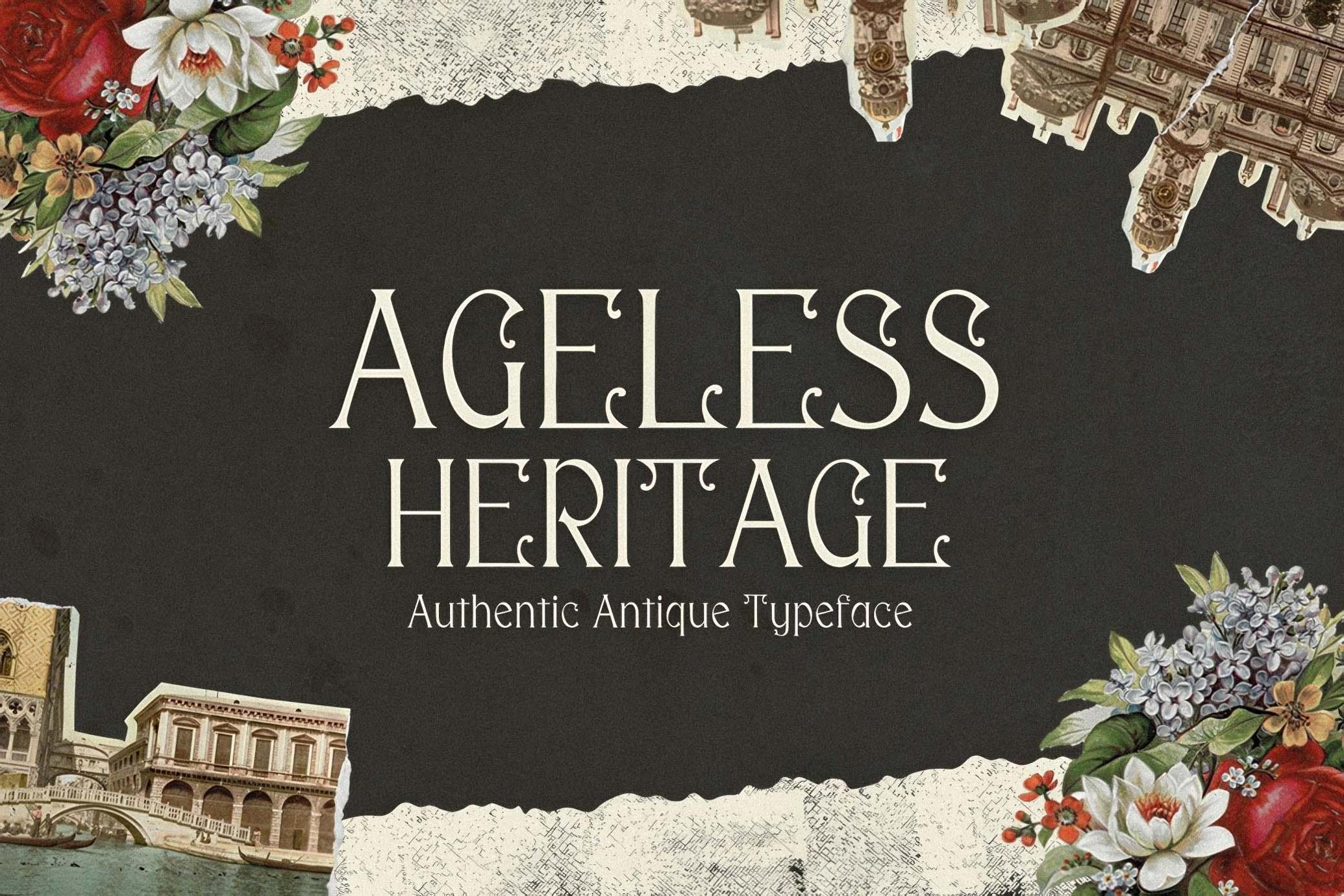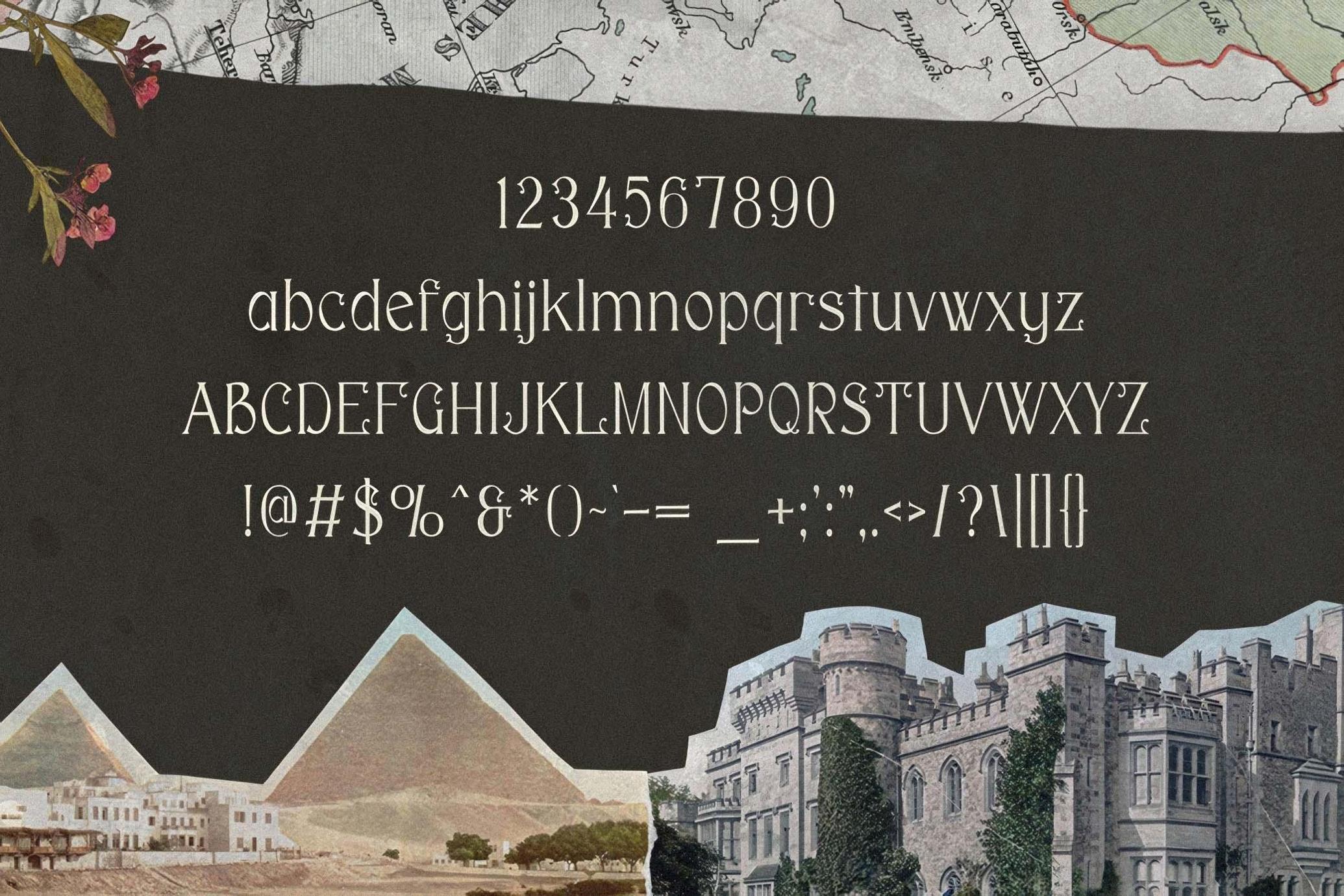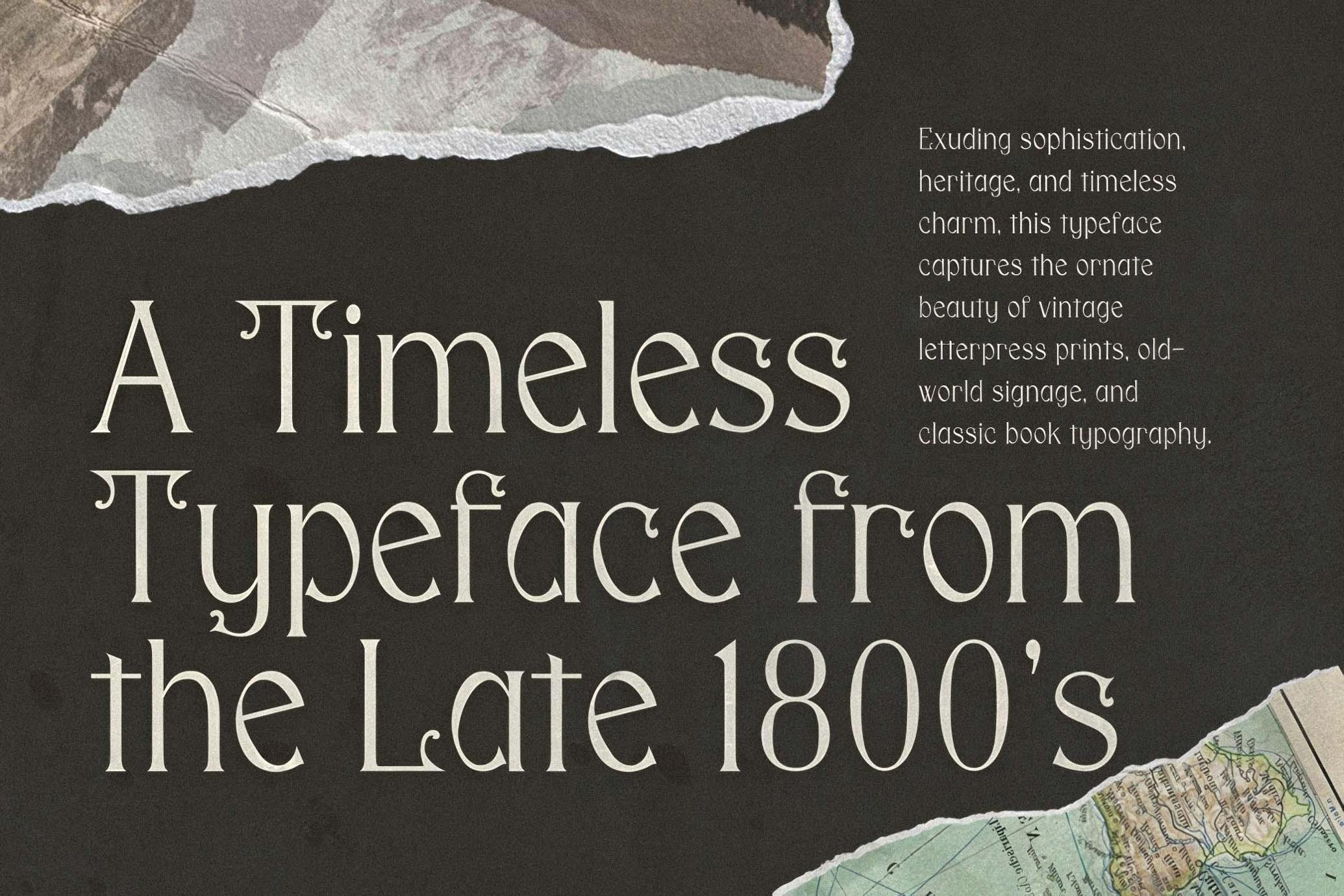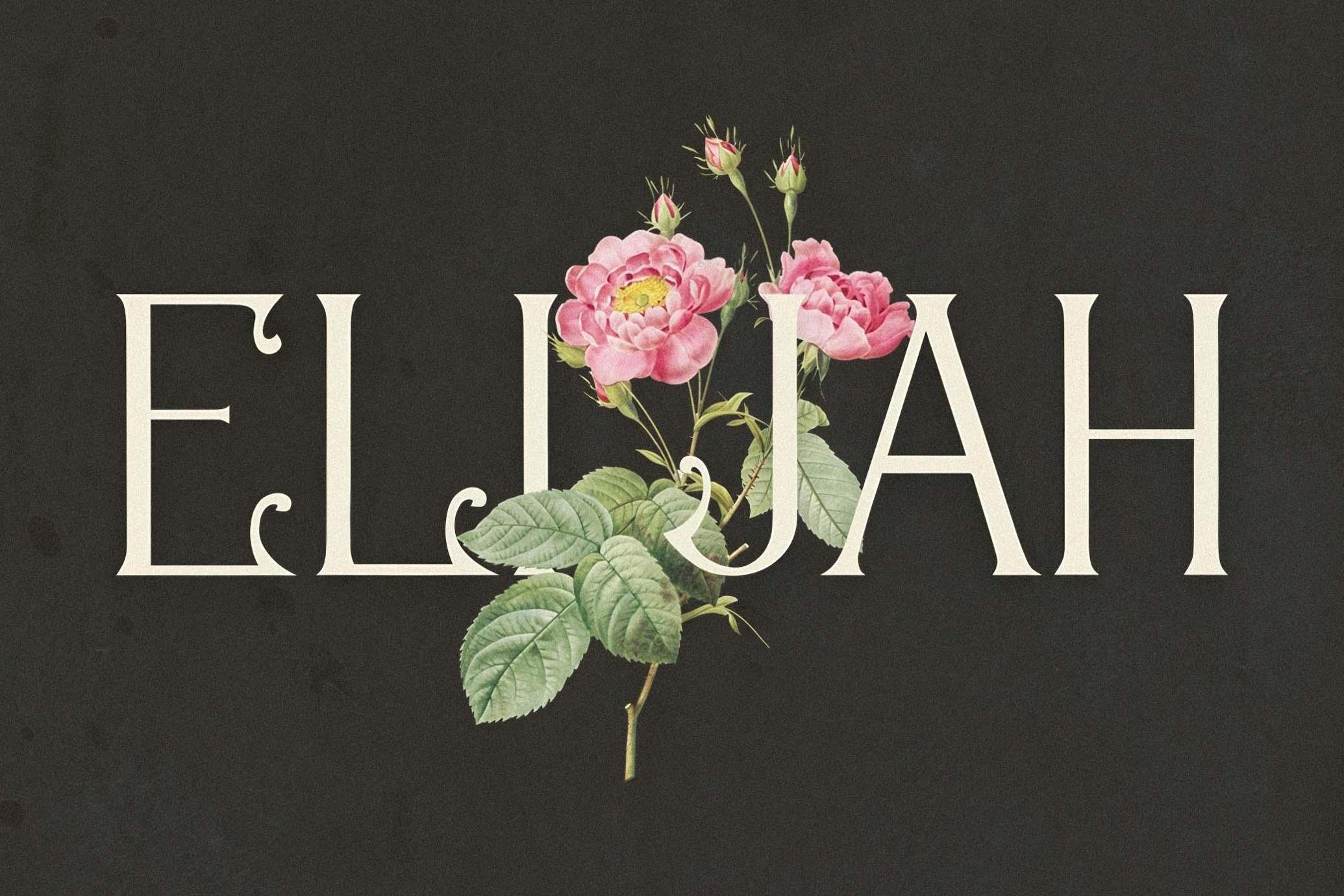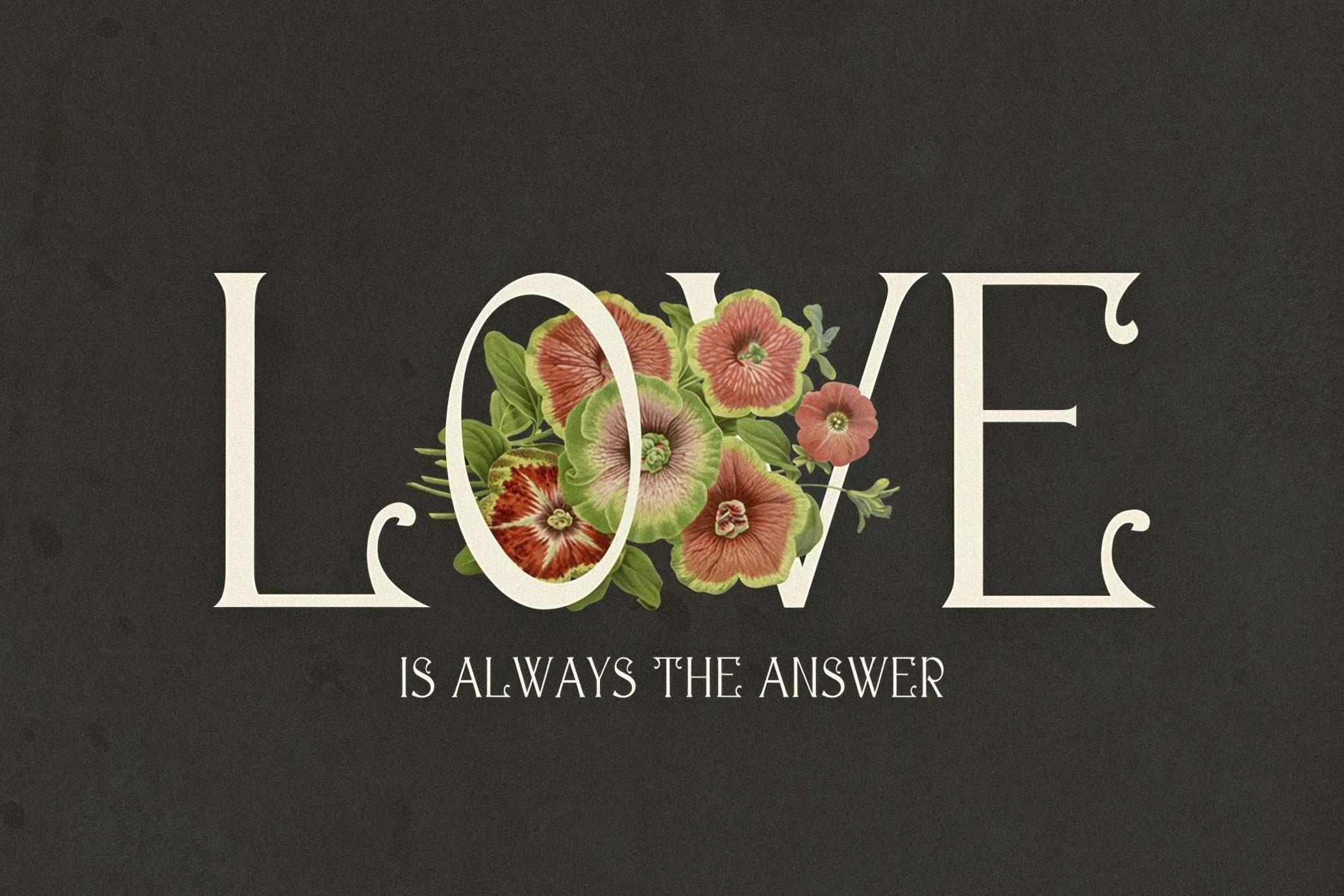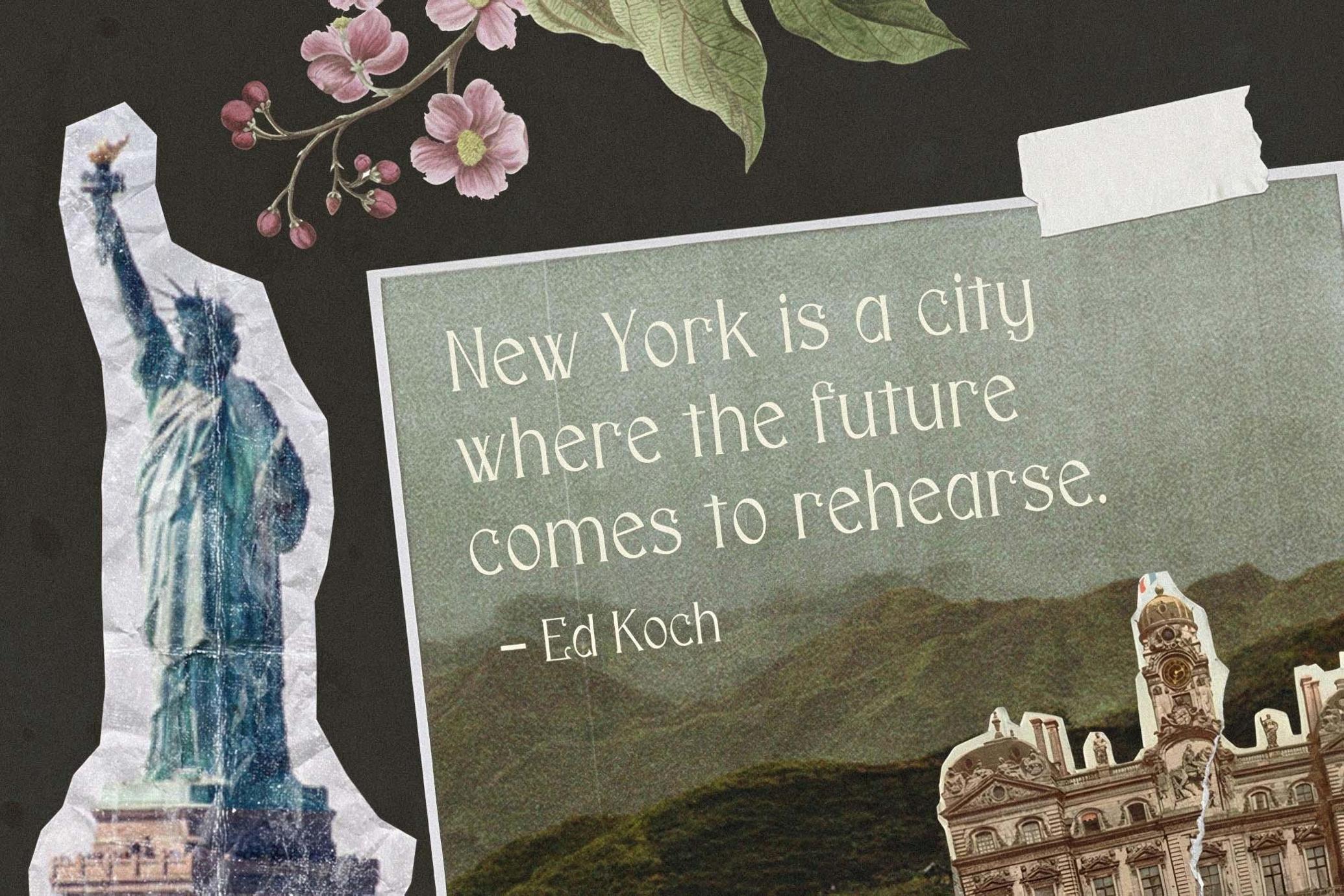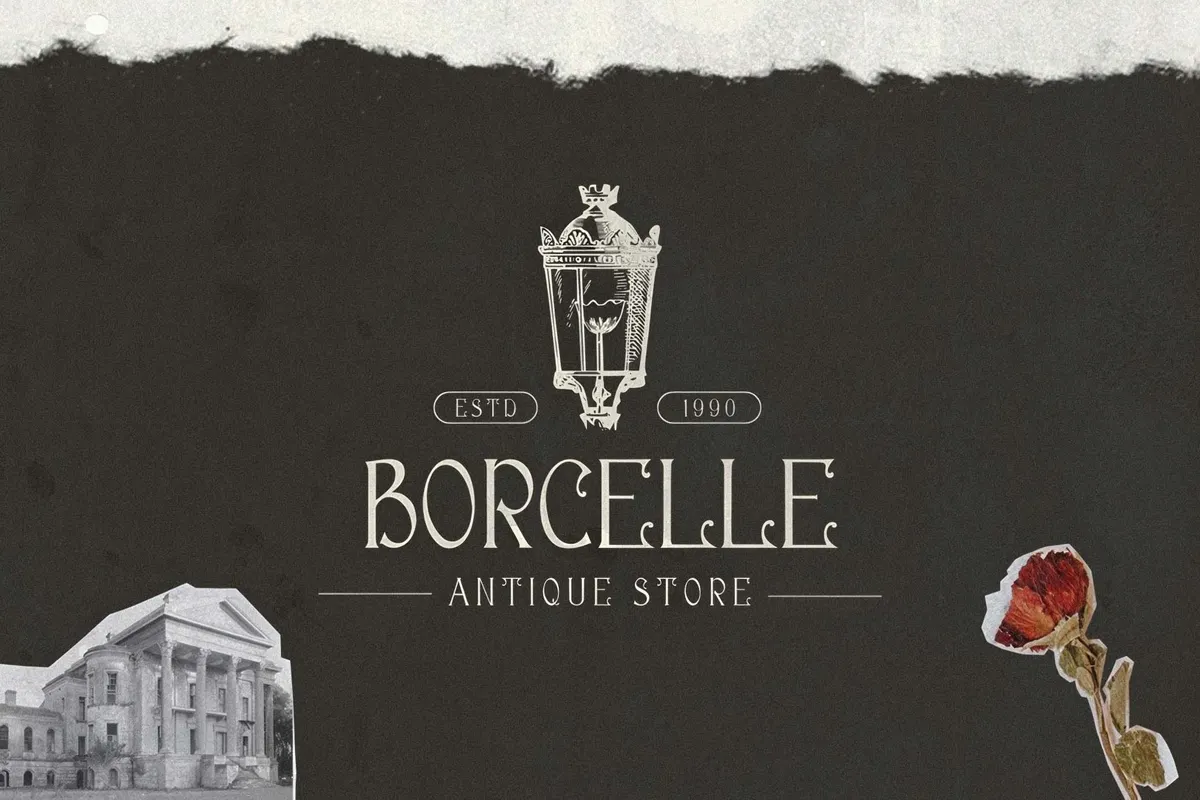
Ageless Heritage - 1900's Typeface
Step into an era of refined craftsmanship with Ageless Legacy, a vintage-inspired typeface that embodies the sophistication, authenticity, and enduring charm of early 20th-century typography. Designed for those who appreciate the artistry of classic lettering, this typeface seamlessly blends elegance with professionalism, making it a perfect choice for branding, editorial design, invitations, signage, and more.
With graceful letterforms, balanced proportions, and subtle vintage detailing, Ageless Legacy captures the essence of historical typography while remaining highly functional for modern applications. Whether you're crafting a luxurious brand identity or an authentic period piece, this typeface ensures your work feels timeless and distinguished.